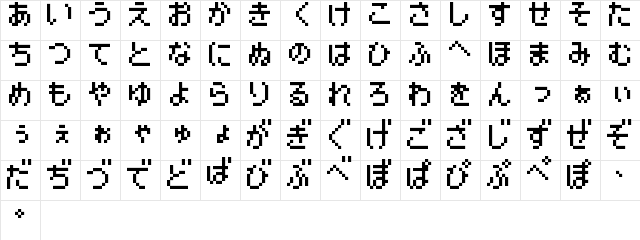
Pokemon Pinball GB Japan HR Regular
Design Context for Pokemon Pinball GB Japan HR Typeface
Pokemon Pinball GB Japan HR offers clean, dependable letterforms without strong stylistic allegiance, making it a practical choice for designers who need flexibility.